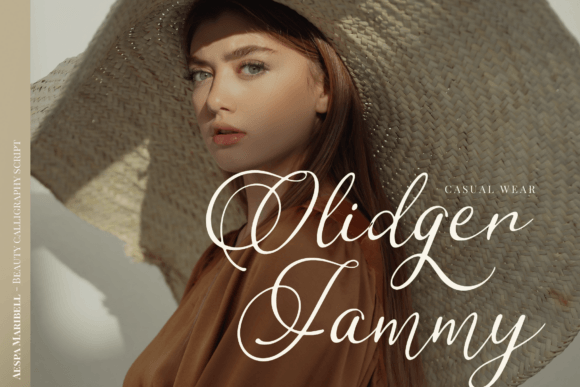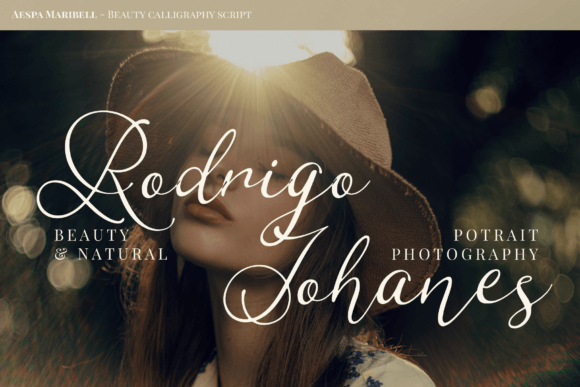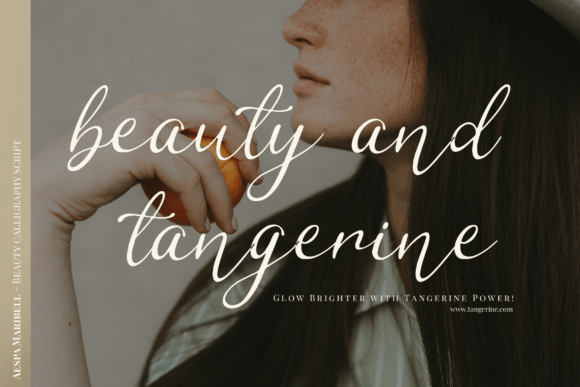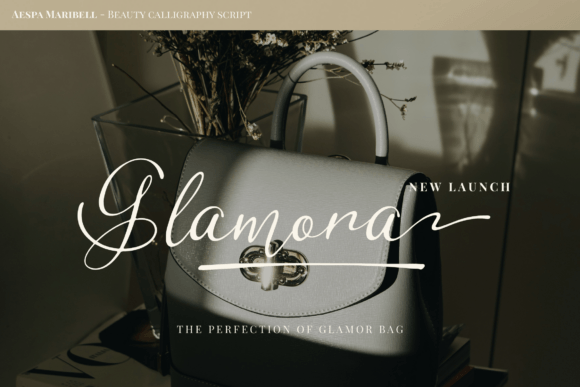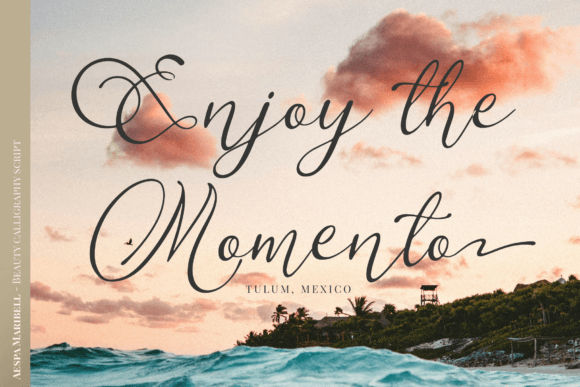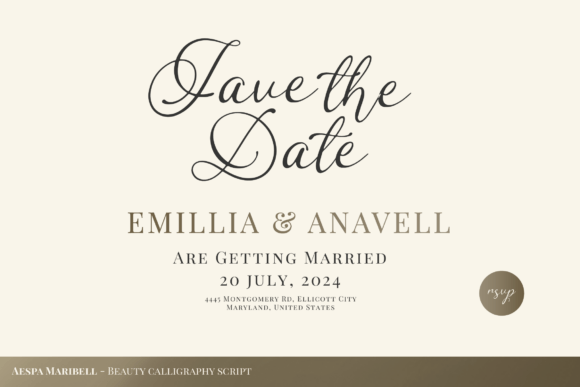
Aespa Maribell Font: Elevate Your Designs with Elegance and Sophistication
In the world of typography, few fonts manage to capture the essence of elegance and sophistication as effectively as Aespa Maribell. This beautiful calligraphy font is designed to bring a touch of refinement and luxury to any design project, making it a must-have for designers and crafters looking to elevate their work. With its soft, flowing curves and graceful, handwritten style, Aespa Maribell is the perfect choice for those seeking to add a dash of beauty to their creations.
The Characteristics of Aespa Maribell
Aespa Maribell is characterized by its elegant and flowing calligraphy style, which is marked by soft, beautiful curves. The font’s graceful, handwritten appearance gives it a unique and sophisticated feel, making it stand out from more traditional fonts. Its fluid strokes and delicate lines create a sense of movement and harmony, adding a touch of luxury to any design.
Aespa Maribell is a versatile font that can be used in a wide range of design projects. Its elegant and sophisticated style makes it perfect for:
• Invitations: Whether you’re designing wedding invitations, birthday party invites, or other special event announcements, Aespa Maribell is the perfect choice. Its beautiful calligraphy style adds a touch of luxury and sophistication, making your invitations stand out.
• Logos: If you’re looking to create a logo for your business or brand, Aespa Maribell is an excellent option. Its elegant and flowing style can help to convey a sense of sophistication and refinement, making your brand appear more professional and established.
• Special Projects: Aespa Maribell can also be used in a variety of special projects, such as scrapbooking, card making, and other paper crafts. Its beautiful curves and flowing lines add a touch of elegance and sophistication to any project.
Why Designers and Crafters Love Aespa Maribell
Designers and crafters love Aespa Maribell for a variety of reasons. Here are just a few:
• Elegance: Aespa Maribell is an elegant font that adds a touch of sophistication to any design. Its beautiful curves and flowing lines create a sense of luxury and refinement.
• Versatility: Aespa Maribell is a versatile font that can be used in a wide range of design projects. Its elegant style makes it perfect for invitations, logos, and special projects.
Tips for Using Aespa Maribell
Here are a few tips for using Aespa Maribell in your design projects:
• Pair it with Other Fonts: Aespa Maribell can be paired with other fonts to create a unique and interesting design. Try pairing it with a bold, sans-serif font for a striking contrast.
• Experiment with Colors: Aespa Maribell looks beautiful in a variety of colors. Experiment with different colors and shades to find the perfect look for your design.
• Use it Sparingly: Aespa Maribell is a beautiful font, but it can be overwhelming if used too much. Use it sparingly to add a touch of elegance and sophistication to your design.
Aespa Maribell is a beautiful and elegant calligraphy font that is perfect for designers and crafters looking to add a touch of sophistication and luxury to their work. Its soft, flowing curves and graceful, handwritten style make it a versatile font that can be used in a wide range of design projects. Whether you’re designing invitations, logos, or special projects, Aespa Maribell is the perfect choice. With its ease of use and versatility, it’s no wonder that Aespa Maribell has become a favorite among designers and crafters.